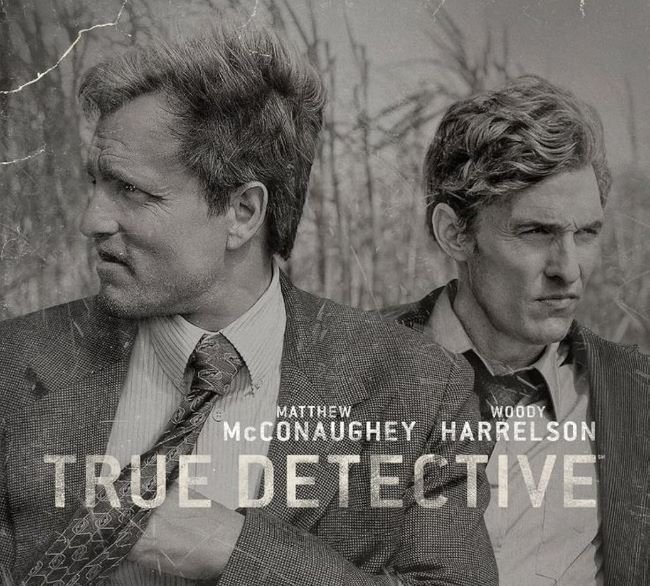
True Detective font
True Detective font has the quality of evidence — clean, clinical, and entirely devoid of the kind of decorative energy that might suggest anyone behind this production is enjoying themselves. Nic Pizzolatto’s 2014 HBO anthology series demanded title typography that could hold the weight of Rust Cohle’s nihilistic monologues and the Louisiana bayou’s slow, rotting beauty without tipping into melodrama, and the minimal sans-serif with its careful spacing and cold authority accomplishes exactly that. Two alternatives approach this same restrained, documentary-serious register: Alternative 1 and Alternative 2.